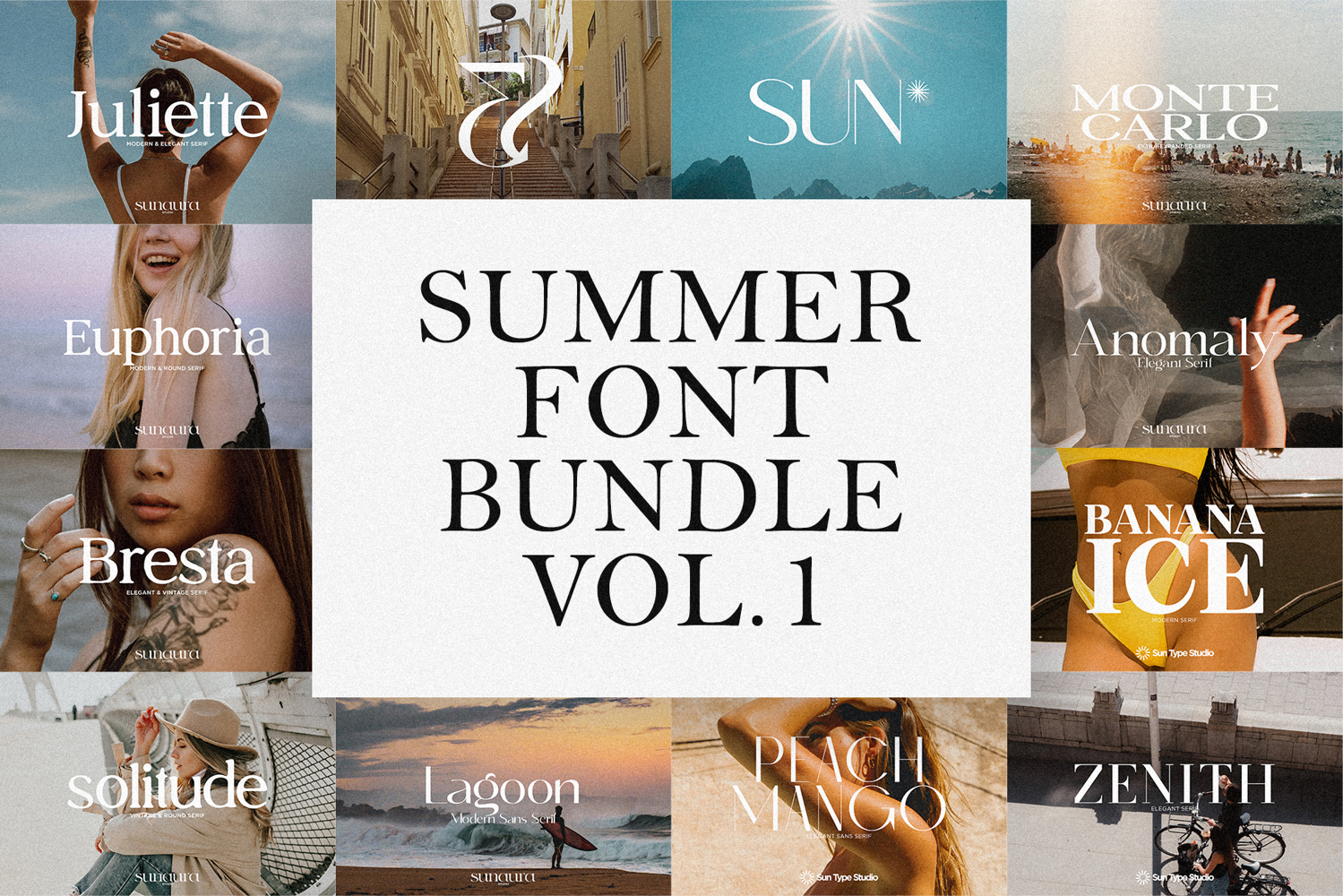
Summer Font Bundle Vol.1
Kick off the season with Summer Font Bundle Vol.1 – a vibrant collection of 10 hand-picked, unique fonts perfect for all your sunny projects! From bold, playful lettering to elegant, beachy sans & serif fonts, this bundle has everything you need to bring that summer vibe to life. Whether you're designing for social media, branding, or crafts, these fonts will add a touch of warmth and fun to any design. Get ready to elevate your creativity with these easy-to-use, versatile fonts!
Bundle includes:
• Juliette - Modern & Elegant Serif https://crmrkt.com/Ge6xQp
• Euphoria - Modern & Round Serif https://crmrkt.com/0qMN9A
• Bresta - Vintage & Elegant Serif https://crmrkt.com/pl6524
• Solitude - Vintage & Round Serif https://crmrkt.com/7pB0qw
• Lagoon - Modern Sans Serif https://crmrkt.com/vXagB0
• Peach Mango - Elegant Sans Serif https://crmrkt.com/zX3awm
• Zenith - Elegant Serif https://crmrkt.com/B3x4ya
• Banana Ice - Modern Serif https://crmrkt.com/Wr9d5o
• Anomaly - Elegant Serif https://crmrkt.com/qleQ03
• MONTE CARLO - Extra-Expanded Serif https://crmrkt.com/vXa5gx